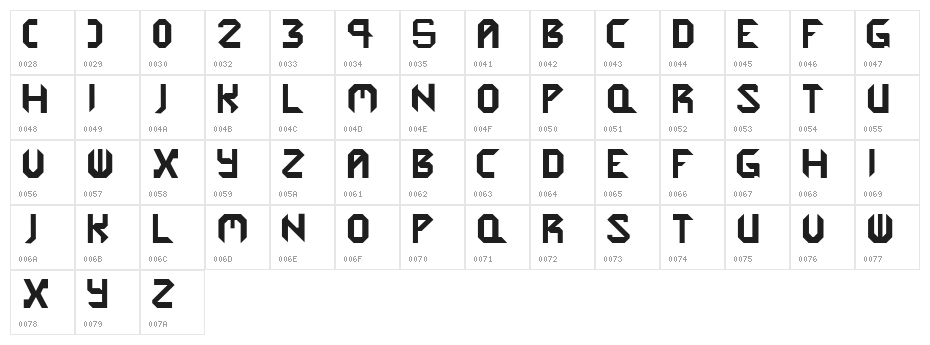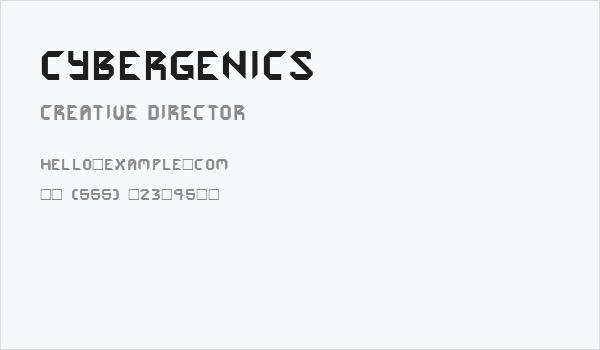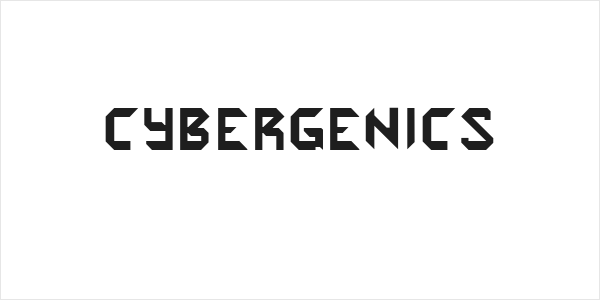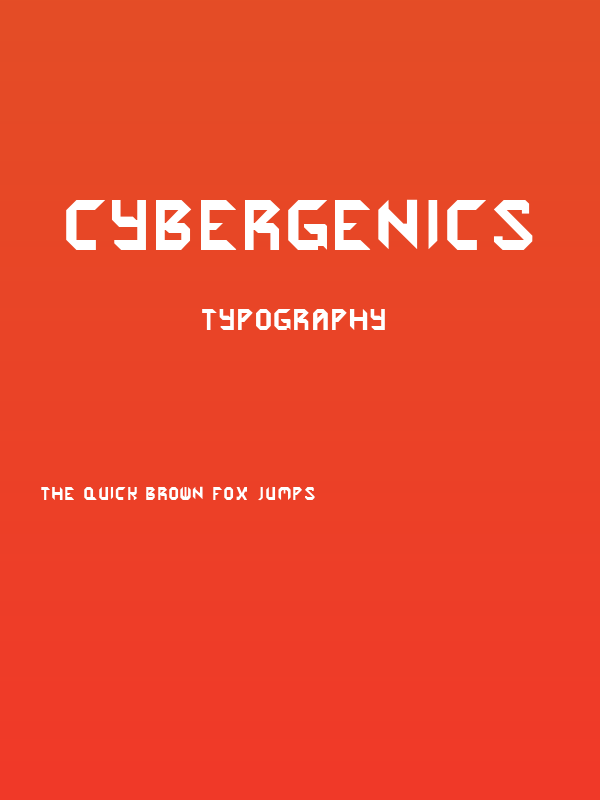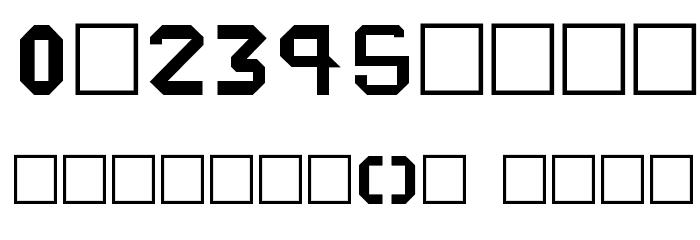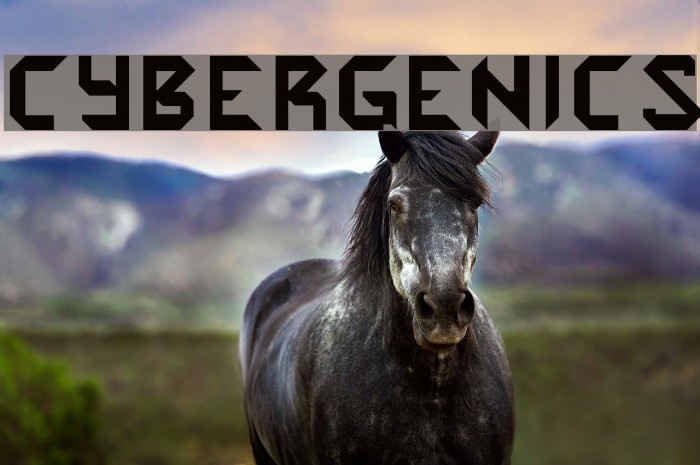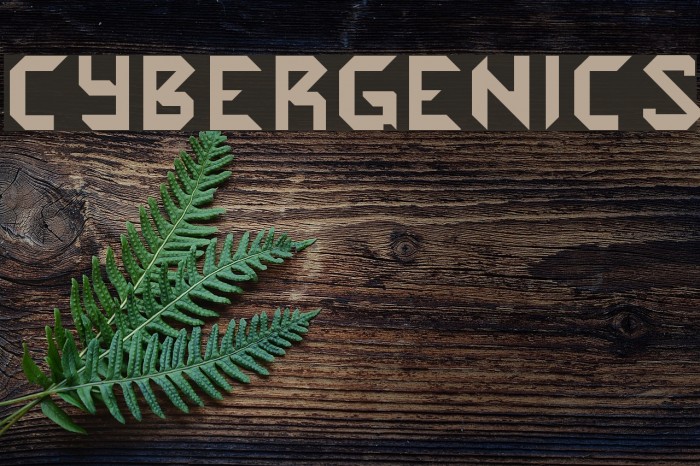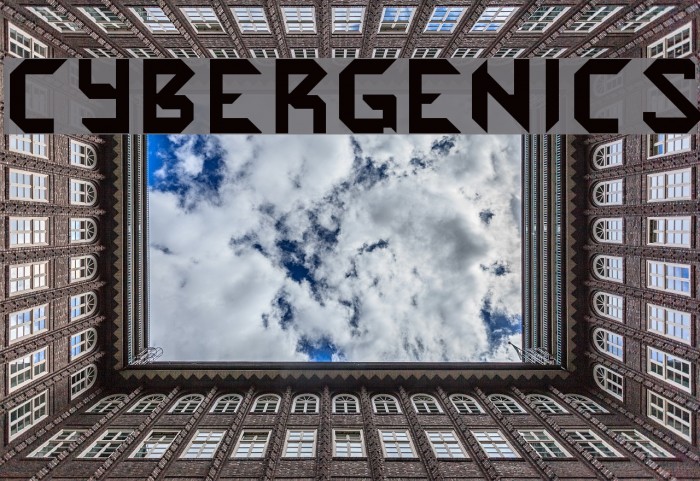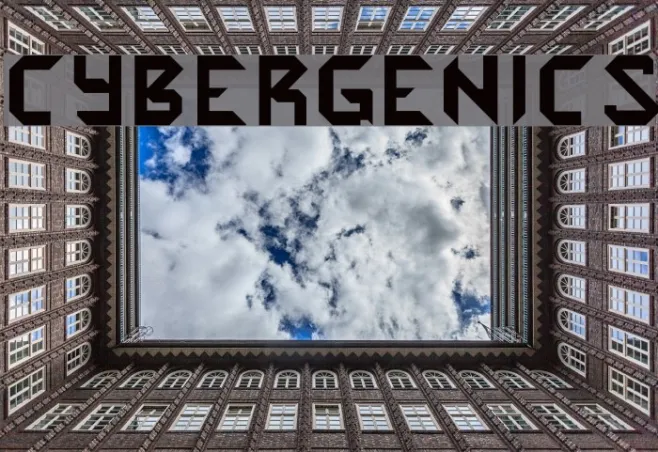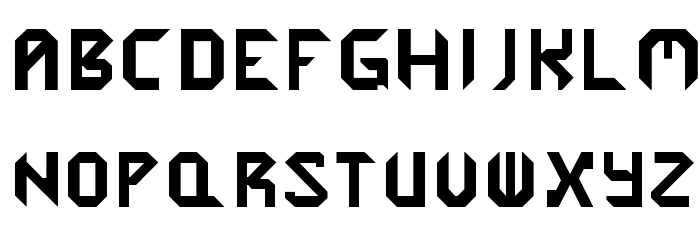
Cybergenics Font
Cybergenics Description
This font features a futuristic and geometric design, characterized by sharp angles and bold lines. The uppercase letters are distinct with a blocky appearance, while the lowercase letters maintain a consistent style, offering a cohesive look. The numerals are equally bold and angular, fitting seamlessly with the overall aesthetic. Special characters are designed to match the font's modern and edgy style, making it suitable for tech-oriented projects. The font's unique structure and strong presence make it ideal for attention-grabbing designs.
| Proposed Projects | Ideal for technology branding, video game titles, sci-fi movie posters, and digital interfaces. |